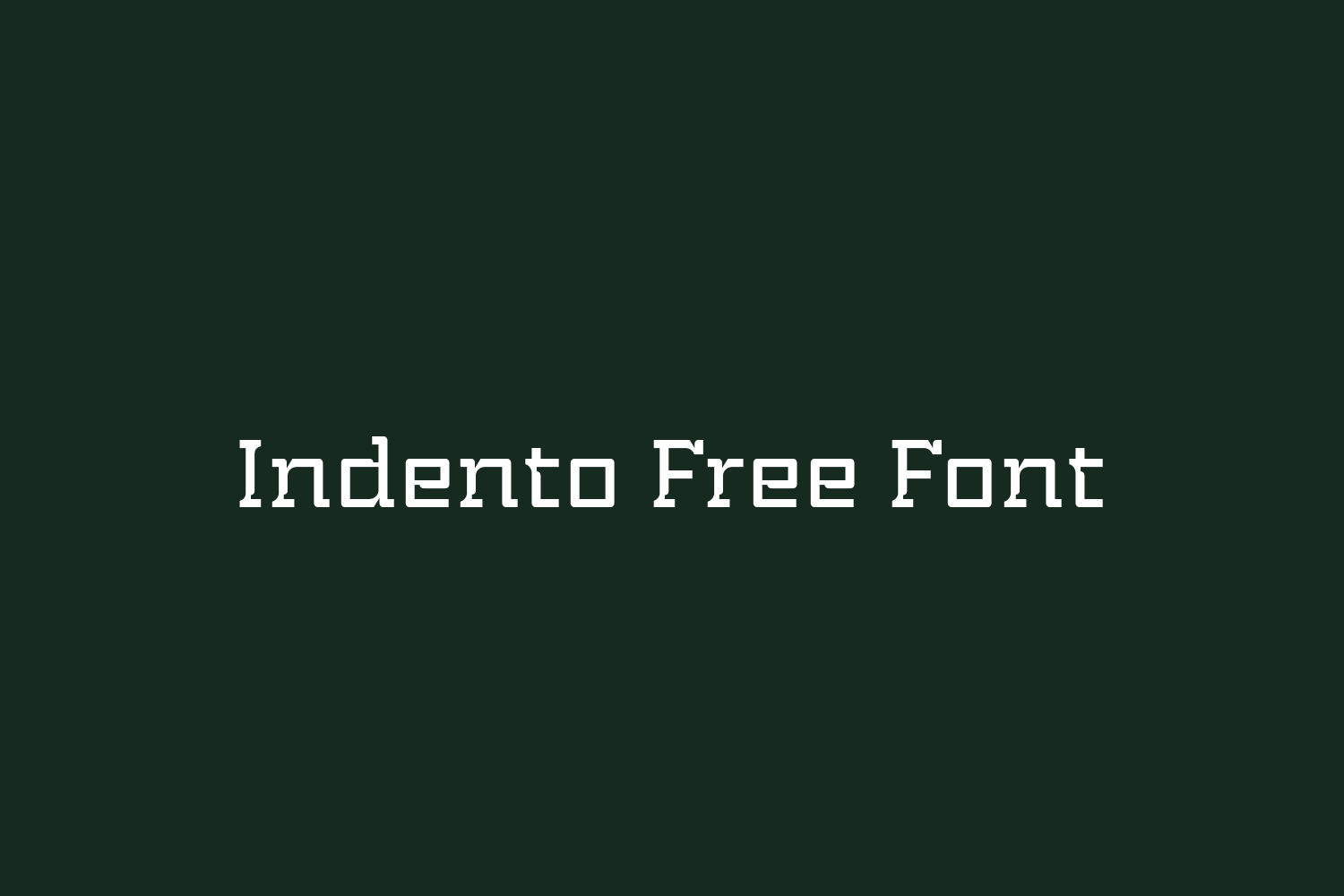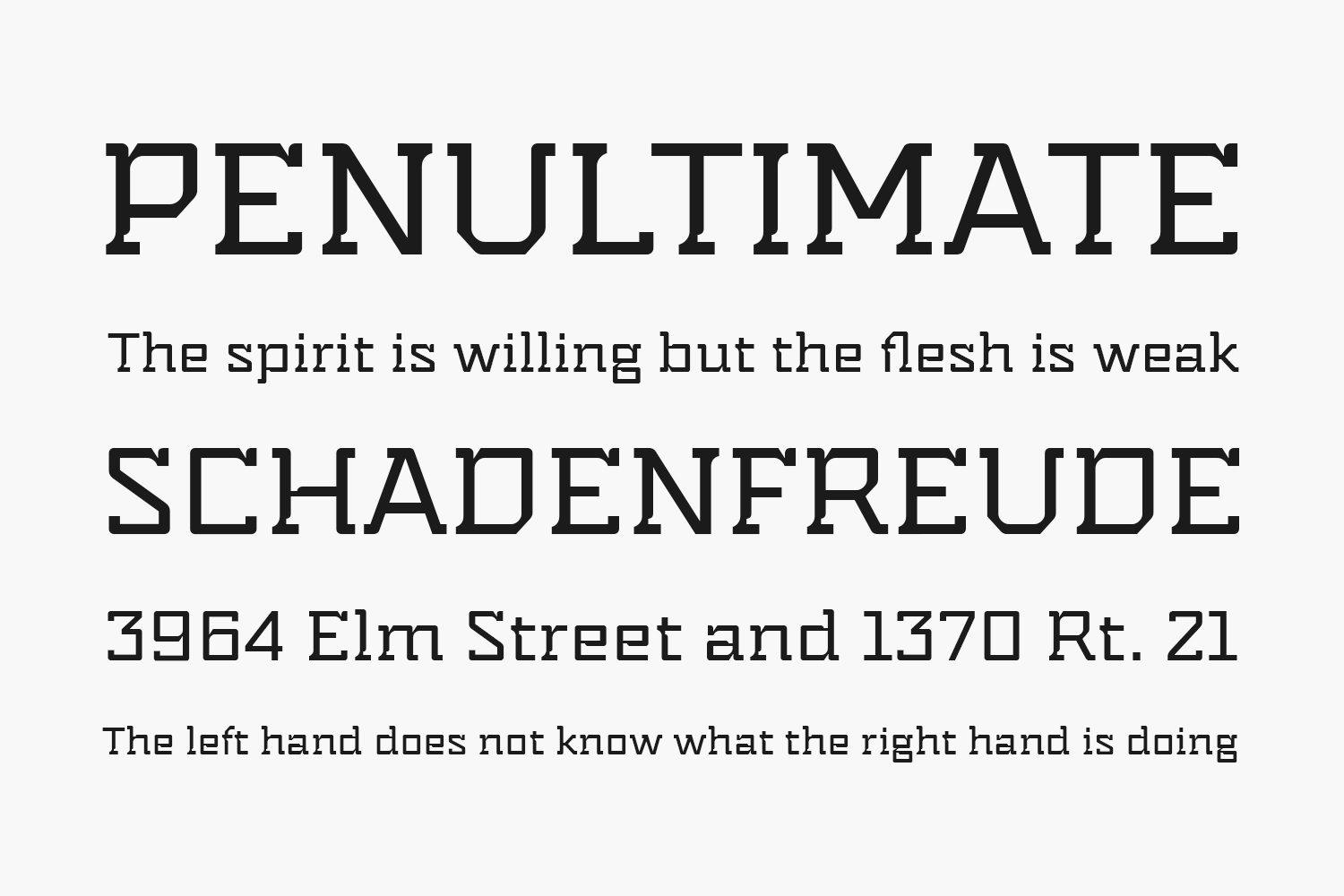
Indento Free Font is a multi-purpose modern geometric slab serif for headlines, posters, branding but fairly legible to be used as longer text. The straight and rounded corners combined with deep cuts and asymmetric serifs gives it a distinctive look while still keeping it’s rigorousness and legibility.
The family consist of three weights, each with a companying italic. The extensive character set – 513 glyphs in each font – includes support for Central and Eastern European languages and OpenType features like small caps, ligatures, fractions, slashed zero, stylistic alternates and more.